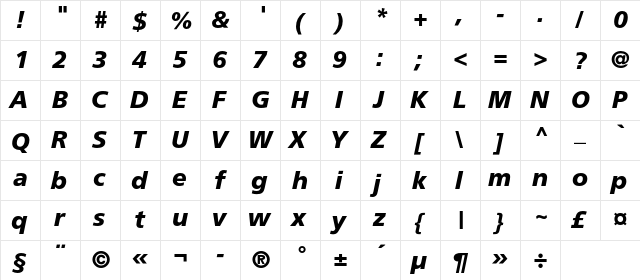
FreeSetBoldC Italic
Design Context for FreeSetBoldC Typeface
FreeSetBoldC takes a measured approach to typography — its balanced proportions and neutral character make it a reliable workhorse for both digital and print work. The slanted form adds forward momentum and visual energy. The heavy weight commands attention and anchors typographic hierarchies.
Pro Tip: Use FreeSetBoldC for emphasis, pull quotes, and subheadings where its slanted energy can add rhythm to the layout.